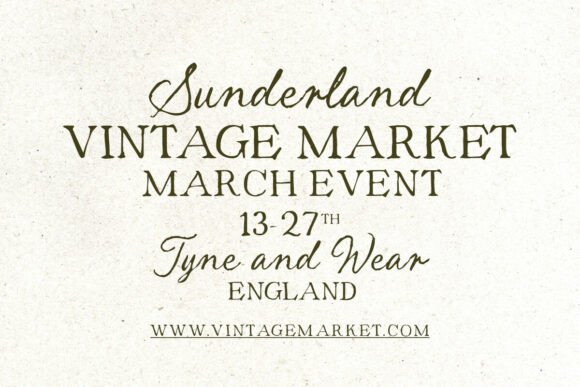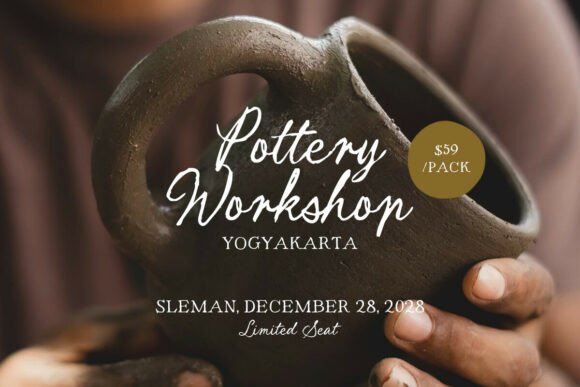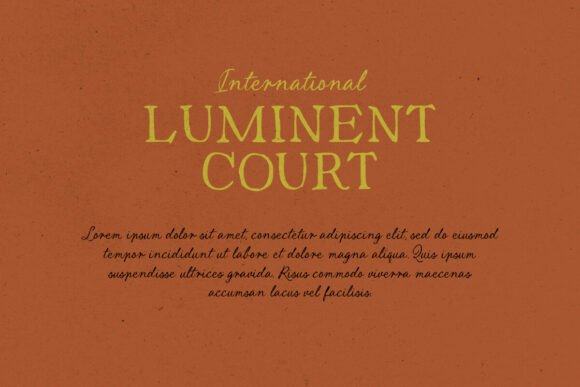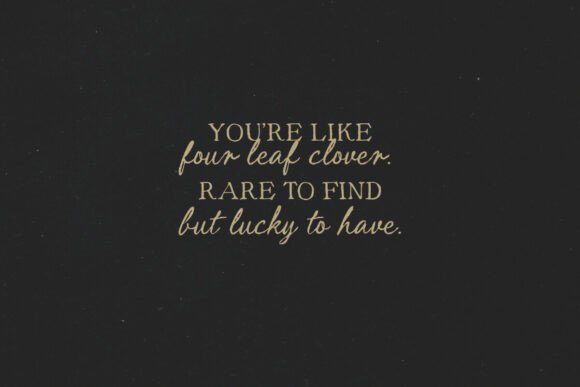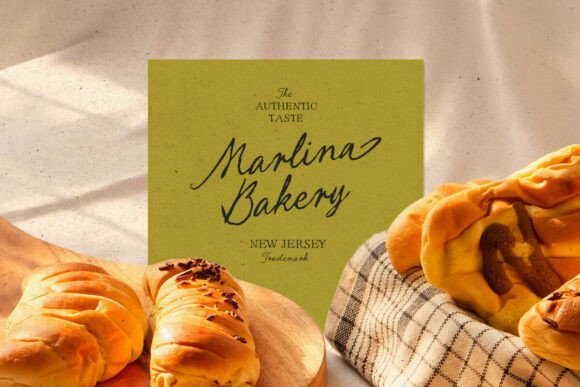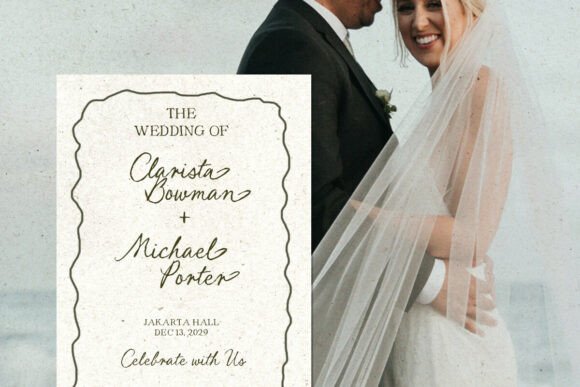
Clover Fields Font: A Charming Blend of Organic Serif and Handwritten Script
In the world of typography, fonts play a crucial role in conveying the tone and personality of a brand or design. For designers and crafters looking for a unique and charming font, Clover Fields Font is an excellent choice. This beautiful font duo seamlessly blends an organic serif with a rough handwritten script, creating a soft rustic look that feels calm, natural, and beautifully imperfect.
The Characteristics of Clover Fields Font
Clover Fields Font is characterized by its textured strokes and organic details, which give it a warm, handmade charm. The font’s rustic feel is reminiscent of notes written in an old countryside journal, evoking a sense of nostalgia and simplicity. The organic serif and handwritten script blend together in perfect harmony, creating a visually appealing contrast that adds depth and interest to any design.
Clover Fields Font is an ideal choice for designers and crafters who want to add a touch of warmth and personality to their projects. Whether you’re working on a branding project, crafting a handmade card, or creating a beautiful journal page, this font duo is sure to impress. The font’s versatility makes it suitable for a wide range of applications, from digital designs to print materials.
Key Features of Clover Fields Font
- Organic Serif and Handwritten Script: The font’s unique blend of organic serif and handwritten script creates a beautiful, rustic look that’s perfect for designs that require a touch of warmth and personality.
- Textured Strokes: The font’s textured strokes give it a handmade, imperfect feel that’s reminiscent of handwritten notes.
- Warm and Inviting: Clover Fields Font has a warm, inviting feel that’s perfect for designs that require a cozy, rustic touch.
- Versatile: The font duo is suitable for a wide range of applications, from digital designs to print materials.
How to Use Clover Fields Font
Clover Fields Font can be used in a variety of ways to add a touch of warmth and personality to your designs. Here are a few ideas to get you started:
- Branding: Use Clover Fields Font to create a unique and memorable brand identity that stands out from the crowd.
- Handmade Cards: Add a personal touch to your handmade cards with this beautiful font duo.
- Journaling: Use Clover Fields Font to create beautiful journal pages that feel like handwritten notes.
- Digital Designs: The font duo is perfect for digital designs, such as social media graphics, blog posts, and more.
Tips for Pairing Clover Fields Font
Pairing Clover Fields Font with other fonts can create a unique and visually appealing contrast. Here are a few tips to keep in mind:
- Pair with a Sans Serif: Pairing Clover Fields Font with a sans serif font creates a beautiful contrast that adds depth and interest to your design.
- Use a Bold Font: Pairing Clover Fields Font with a bold font can create a striking contrast that draws attention to your design.
- Experiment with Font Sizes: Experimenting with font sizes can create a visually appealing hierarchy of information in your design.
Clover Fields Font is a beautiful and charming font duo that’s perfect for designers and crafters looking for a unique and rustic touch. With its organic serif and handwritten script blend, textured strokes, and warm, inviting feel, this font duo is sure to impress. Whether you’re working on a branding project, crafting a handmade card, or creating a beautiful journal page, Clover Fields Font is an excellent choice.